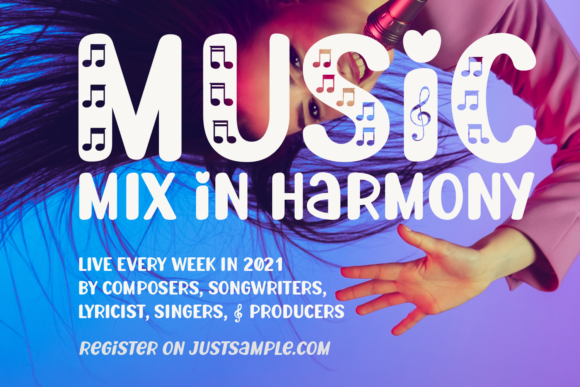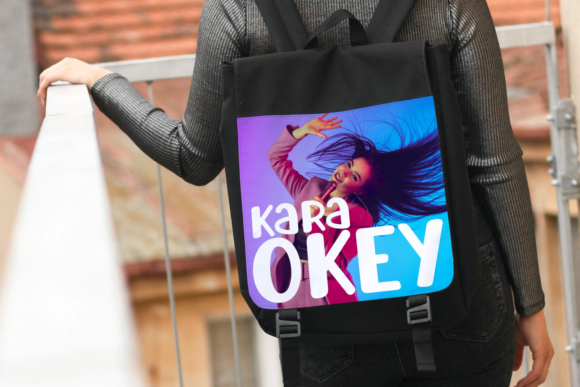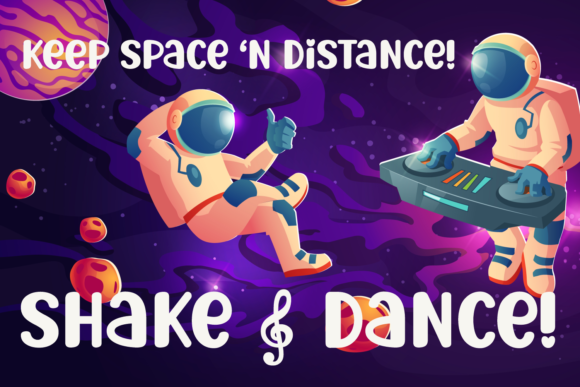
Discover the Charm of Drama Melody Font: Elevate Your Crafting Projects with this Unique Display Font
Are you a designer or crafter looking for a font that can add a touch of personality and whimsy to your projects? Look no further than the Drama Melody Font! This original and cute display font is sure to capture your heart with its musical-themed charm. In this article, we’ll dive into the features and benefits of Drama Melody, and explore how it can take your crafting projects to the next level.
What is Drama Melody Font?
Drama Melody is a one-of-a-kind display font that is designed to add a touch of drama and flair to your crafting projects. Its unique musical-themed design makes it perfect for creating eye-catching greeting cards, logos, stationery, and more. Whether you’re a professional designer or a DIY crafter, Drama Melody is sure to inspire your creativity and help you stand out from the crowd.
Key Features of Drama Melody Font
- Original and Unique Design: Drama Melody boasts an original and unique design that sets it apart from other fonts. Its musical-themed elements add a touch of whimsy and charm, making it perfect for crafting projects that require a personal touch.
- Cute and Playful: The font’s cute and playful design makes it ideal for creating greeting cards, invitations, and other craft projects that require a friendly and approachable tone.
- Musical-Themed Version: The musical-themed version of Drama Melody takes the font to the next level, offering a range of musical elements that can be used to create music-inspired craft projects.
How to Use Drama Melody Font in Your Crafting Projects
Drama Melody is a versatile font that can be used in a wide range of crafting projects. Here are a few ideas to get you started:
- Greeting Cards: Use Drama Melody to create eye-catching greeting cards for special occasions, such as birthdays, weddings, and holidays.
- Logos and Branding: Drama Melody’s unique design makes it perfect for creating logos and branding materials for businesses and organizations.
- Stationery: Add a touch of personality to your stationery with Drama Melody. Use it to create custom notebooks, journals, and letterheads.
- DIY Crafts: Drama Melody can be used in a wide range of DIY crafts, such as scrapbooking, paper crafting, and mixed media art.
Tips and Tricks for Getting the Most Out of Drama Melody
Here are a few tips and tricks for getting the most out of Drama Melody:
- Experiment with Different Colors: Drama Melody looks great in a wide range of colors. Experiment with different color combinations to find the one that works best for your project.
- Mix and Match with Other Fonts: Drama Melody can be paired with other fonts to create a unique and interesting look. Try mixing and matching it with serif and sans-serif fonts to create a contrasting effect.
- Use it in Combination with Images: Drama Melody looks great when used in combination with images. Try using it to add text to your photos, illustrations, or other graphics.
Drama Melody Font is a unique and versatile display font that is perfect for designers and crafters looking to add a touch of personality and whimsy to their projects. With its musical-themed design and cute and playful style, it’s sure to inspire your creativity and help you stand out from the crowd. Whether you’re creating greeting cards, logos, stationery, or DIY crafts, Drama Melody is the perfect choice. So why wait? Download Drama Melody today and take your crafting projects to the next level!